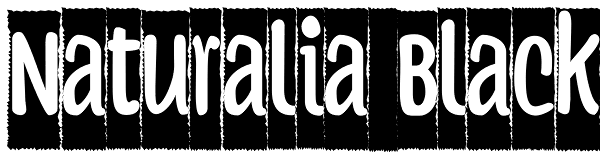
Naturalia
Naturalia font was designed by Carlos Fabián Camargo in 2012 and suggests an ultra-narrow, spontaneous and winding handwriting lettering, it is great for composing short and striking sentences. His idea behind not only alludes asymmetrical shapes...